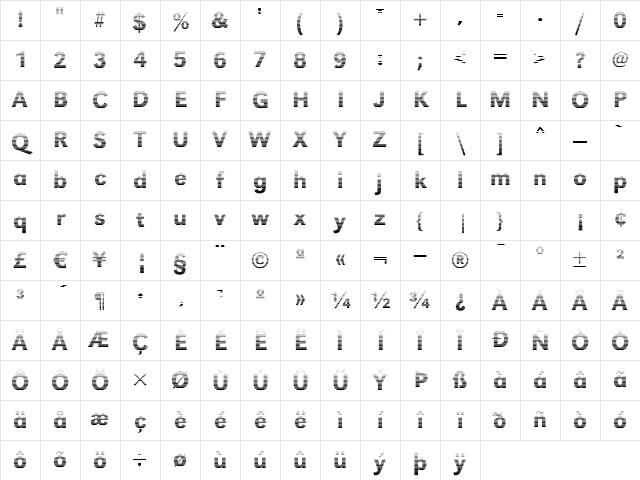
Design Context for TomBeckerGradient-Medium
TomBeckerGradient-Medium is a composed and adaptable typeface that performs quietly and consistently across a wide range of design contexts.
Pro Tip: Use TomBeckerGradient-Medium in both headline and body roles to test its range before committing to a single application.